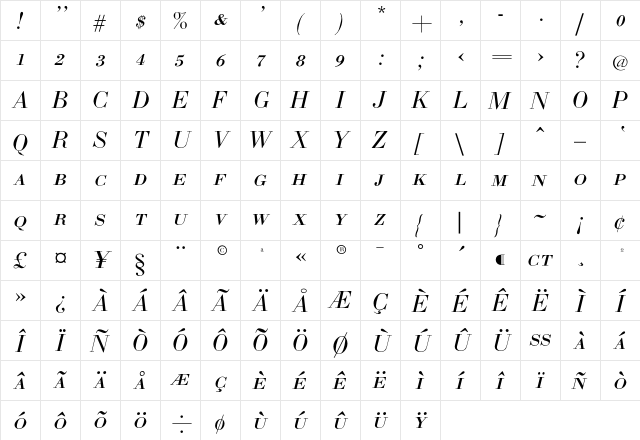
BodoniZL-SC-Italic Regular
Design Context for BodoniZL-SC-Italic Typeface
BodoniZL-SC-Italic is a composed and adaptable typeface that performs quietly and consistently across a wide range of design contexts. The dynamic lean of this cut emphasises speed and emphasis in any layout.
Pro Tip: Try BodoniZL-SC-Italic for annotation and caption copy alongside an upright companion — the contrast in angle creates a dynamic but ordered typographic system.